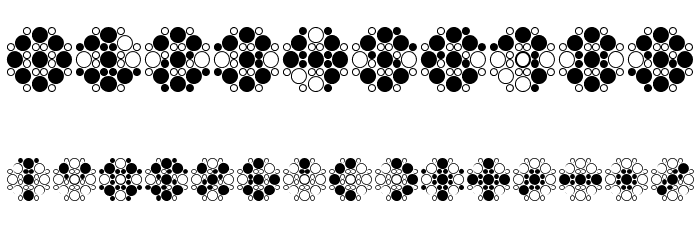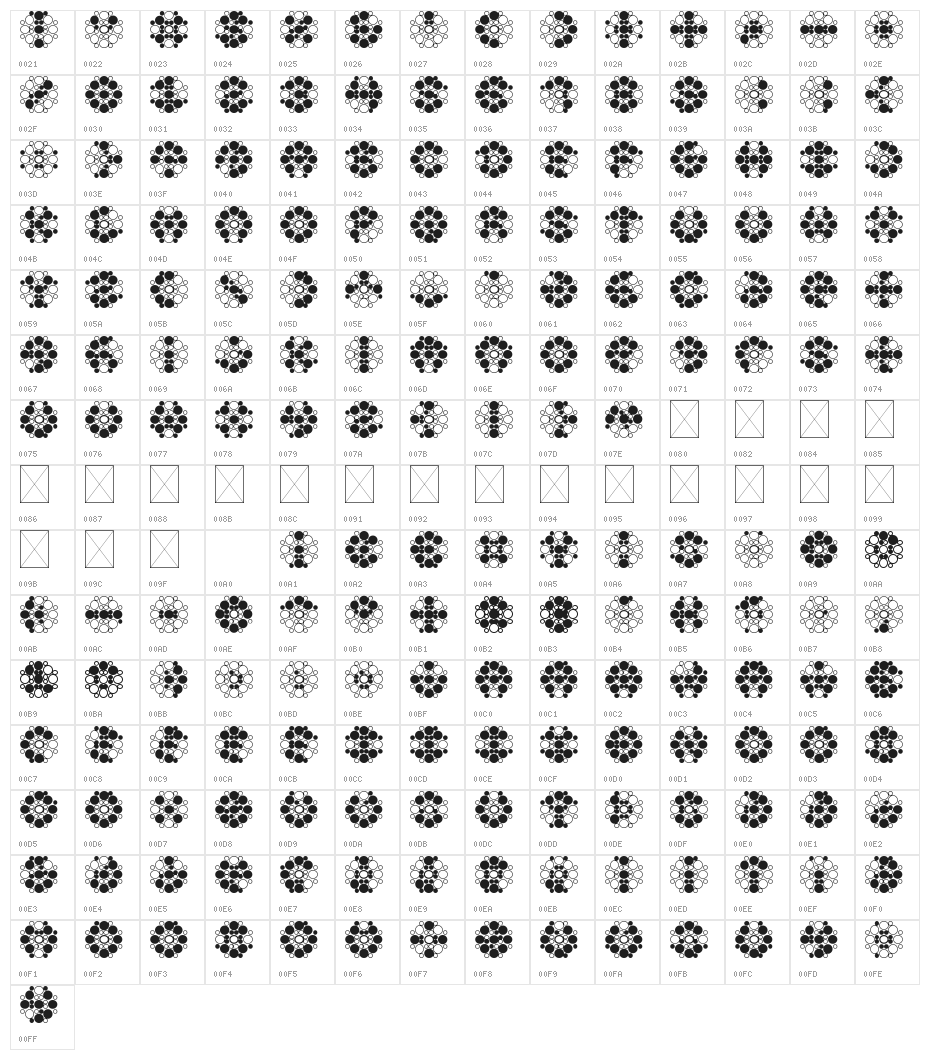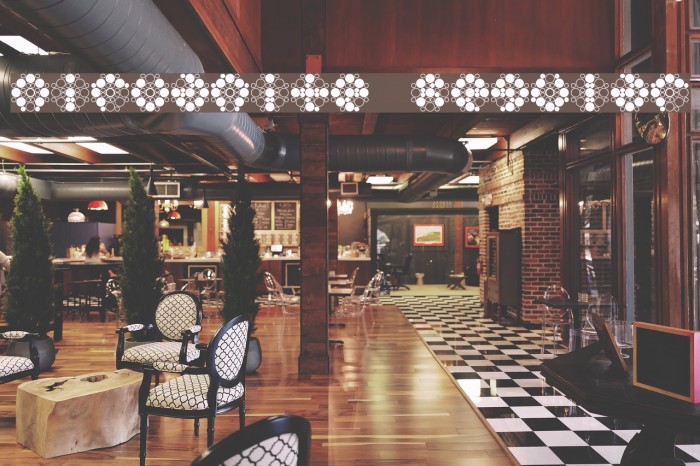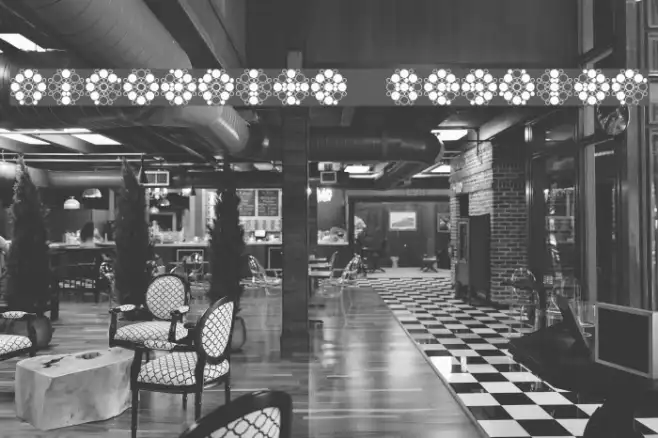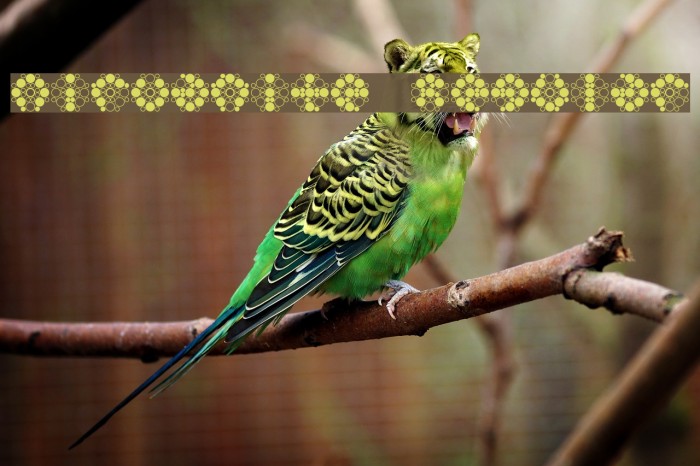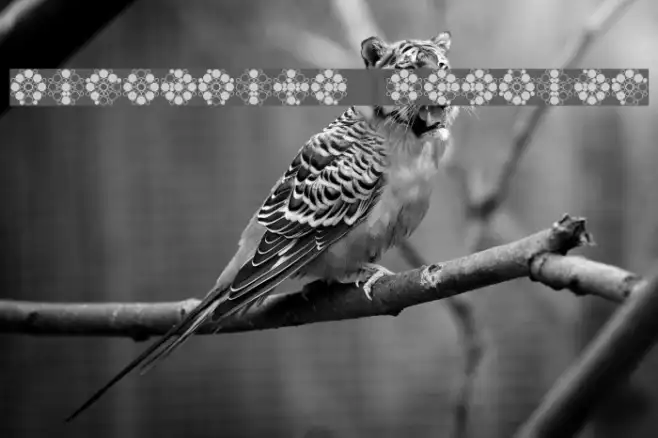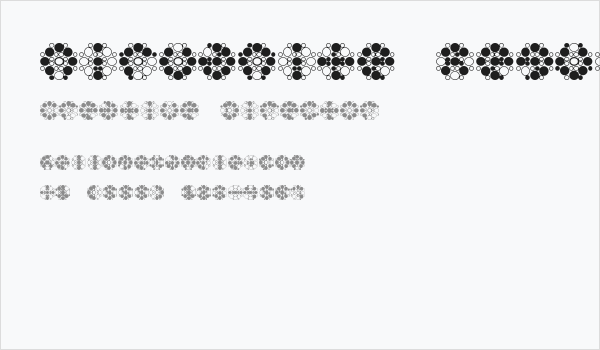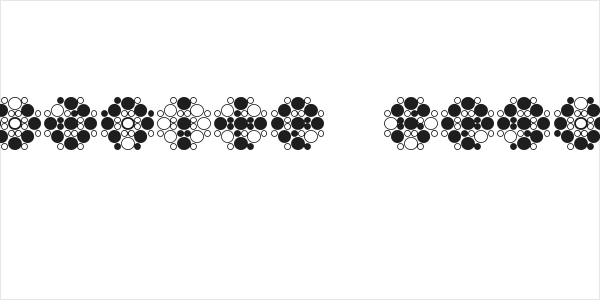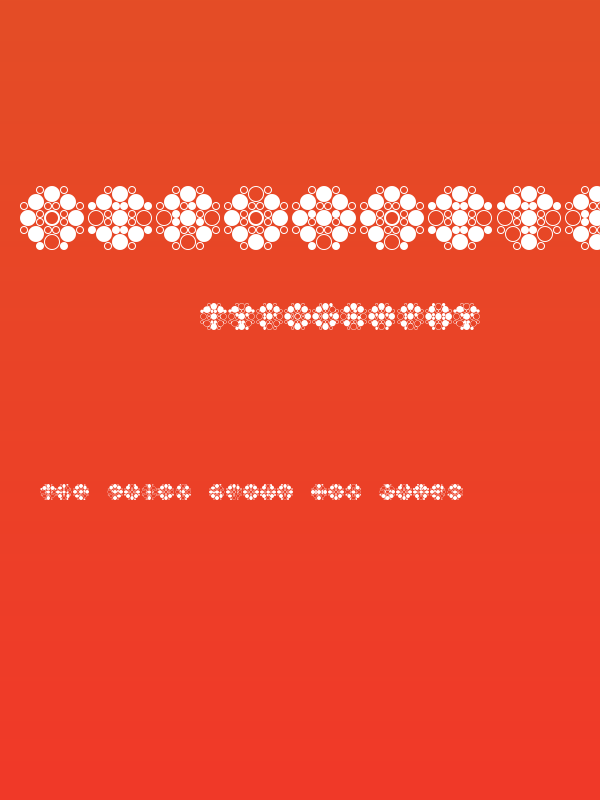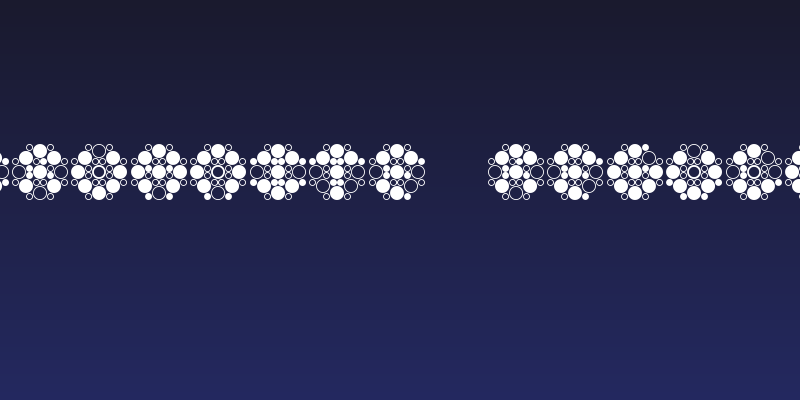
Nirvanite Regular Font
Nirvanite Regular Description
A highly decorative, geometric font composed of interconnected circles forming each character, creating a floral or mandala-like appearance. The glyphs are abstract and uniform, with consistent use of filled and outlined circles.
Overall StyleDecorative, Geometric, Ornamental
Use CaseLogos, Headlines, Decorative elements
Proposed ProjectsPosters, invitations, branding for creative industries, decorative borders, event graphics.